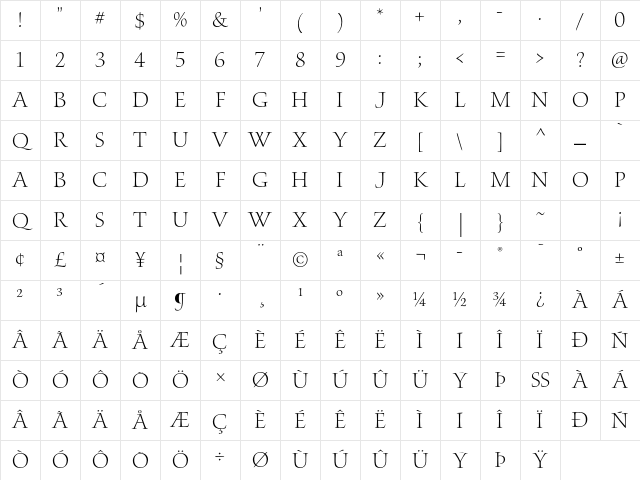
Waters Titling Pro Light
Designer: Julian Waters and Robert Slimbach
Design Context for Waters Titling Pro
Waters Titling Pro is a composed and adaptable typeface that performs quietly and consistently across a wide range of design contexts. Its slender proportions lend an understated elegance to any composition.